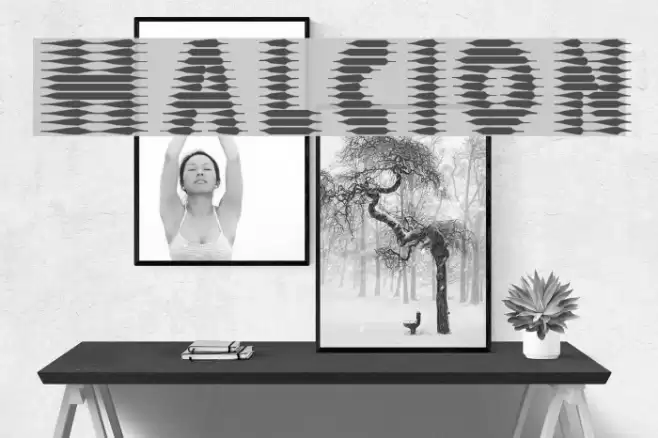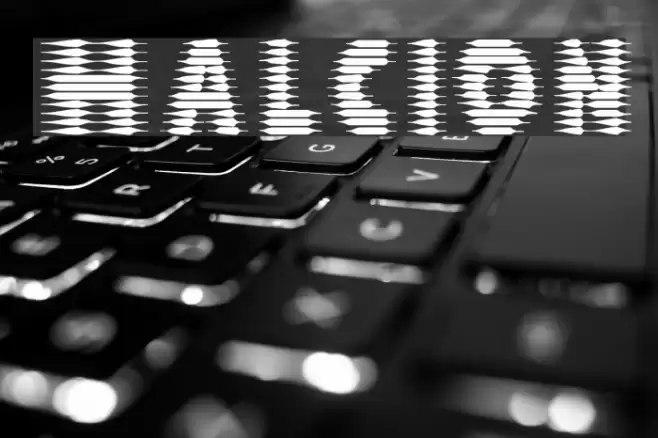
Halcion Font
Halcion Description
This font features a unique, modern design with a horizontal line pattern running through each character, creating a dynamic and textured appearance. The uppercase and lowercase letters maintain a consistent style, with bold, geometric shapes that are slightly condensed. The numbers and special characters follow the same design principles, ensuring uniformity across all glyphs. The font's distinct style makes it stand out, with its high contrast and bold weight, making it suitable for eye-catching designs.
A bold, modern font with a unique horizontal line pattern from Crazy fonts.
- Proposed Projects: Ideal for branding, posters, and digital artwork where a striking and modern aesthetic is desired.